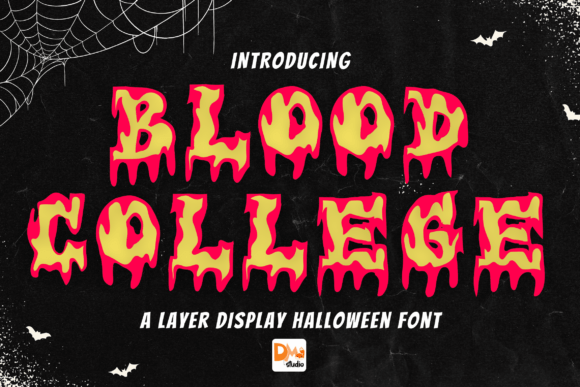
Blood College Font: A Daring Fusion of Traditional Collegiate Typeface and Gothic Undertones
In the realm of typography, fonts play a pivotal role in defining the aesthetic and tone of any design project. Whether it’s a Halloween-themed creation, a macabre movie poster, a dynamic sports team identity, or a trendsetting streetwear design, the choice of font can significantly influence how the message is received. Introducing the Blood College Font, a unique typeface that merges traditional collegiate lettering with gothic undertones, offering an unusual yet captivating aesthetic.
The Genesis of Blood College Font
Blood College Font is not just another typeface; it’s an experience. It was designed to evoke an intriguing aura around gothic sports team graphics or to lend a unique, powerful appeal to college-style projects. The creators aimed to blend the classic varsity lettering, often associated with school spirit and athletic pride, with the mysterious and somewhat eerie appeal of gothic typography. The result is a font that stands out in any medium, be it digital or print.
Characteristics of Blood College Font
So, what makes Blood College Font so distinct? Here are a few key characteristics:
- Traditional Collegiate Base: The font is rooted in traditional collegiate typefaces, which are often seen in varsity letters, school emblems, and sports team logos. This base gives it a familiarity and a sense of authenticity.
- Gothic Undertones: What sets Blood College apart is the infusion of gothic undertones. These undertones add a layer of complexity and intrigue, making the font perfect for projects that require a bit of an edge.
- Versatility: Despite its specific aesthetic, Blood College Font is remarkably versatile. It can be used in a variety of contexts, from sports and Halloween-themed designs to more traditional collegiate and gothic-inspired projects.
- Legibility: One of the challenges with combining traditional and gothic elements is maintaining legibility. Blood College Font achieves a perfect balance, ensuring that the text is easy to read while still being unique and attention-grabbing.
Applications of Blood College Font
The applications of Blood College Font are vast and varied. Here are some of the most compelling uses:
Halloween-themed Creations
Halloween is a time for spooky decorations, eerie invitations, and creepy costumes. Blood College Font is perfect for creating Halloween-themed artwork, from party invitations to horror movie posters. The gothic undertones add just the right amount of spookiness to any design.
Macabre Movie Posters
For filmmakers looking to create a macabre or horror movie poster, the Blood College Font can add an element of horror and intrigue. The font’s unique blend of collegiate and gothic elements can help set the tone for a thrilling and chilling cinematic experience.
Dynamic Sports Team Identity
Sports teams often look for logos and typography that convey strength, unity, and a bit of an edge. Blood College Font can be used to create dynamic sports team identities that stand out from the competition. Whether it’s for a school team or a professional sports team, this font can add a powerful and intimidating presence.
Trendsetting Streetwear Designs
The streetwear industry thrives on unique and bold designs. Blood College Font can be incorporated into streetwear designs to add a touch of rebellion and individuality. From t-shirts to hats, this font can help brand your streetwear line as edgy and trendsetting.
Tips for Using Blood College Font
To make the most out of Blood College Font, consider the following tips:
- Pair with Complementary Fonts: While Blood College Font is versatile, pairing it with complementary fonts can enhance its impact. Consider pairing it with simpler fonts to create contrast.
- Experiment with Colors: The right color scheme can elevate your design. Experiment with dark, bold colors to emphasize the gothic undertones or go for a more traditional collegiate look with bright, team-specific colors.
- Play with Textures and Backgrounds: Adding textures or backgrounds can add depth to your design. Consider vintage textures or dark, gradient backgrounds to make your text pop.
Blood College Font is more than just a typeface; it’s a statement. It’s perfect for designers looking to add an edgy, standout character to their projects. Whether you’re working on a Halloween-themed creation, a macabre movie poster, a dynamic sports team identity, or a trendsetting streetwear design, Blood College Font promises to deliver an unparalleled intensity and unique aesthetic. Embrace the blend of traditional collegiate typeface and gothic undertones to invoke an intriguing aura around your designs.